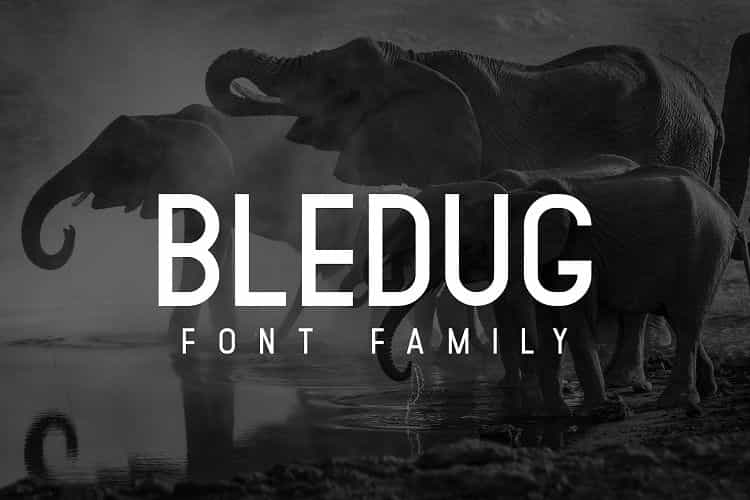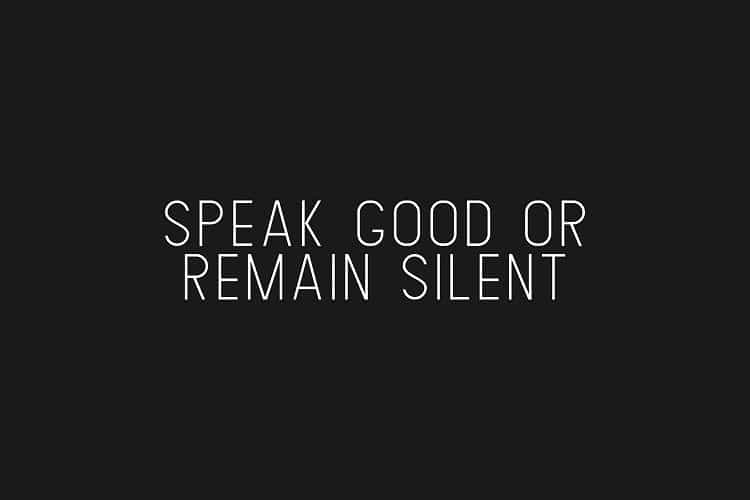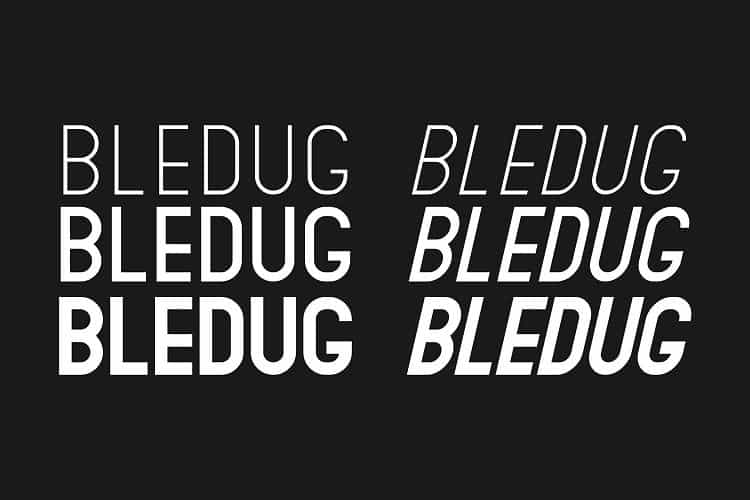
Bledug Typeface is a greatly versatile sans serif design to give you a very clear and modern look. Bledug is written in all capital letters sans serif font family. It is available in 8 styles, three weights, and three italics as well as outline and wireframe. Bledug is ideal for headlines, branding visual identity, posters, logos and so on.